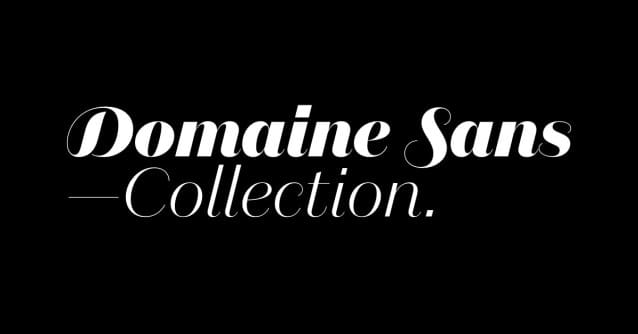
Domaine Sans Collection Font Family
Domaine Sans Collection Font Family was an exploration into the unpopular Latin typeface genre; Domaine Sans delves into another unpopular genre: sans serifs with contrast.